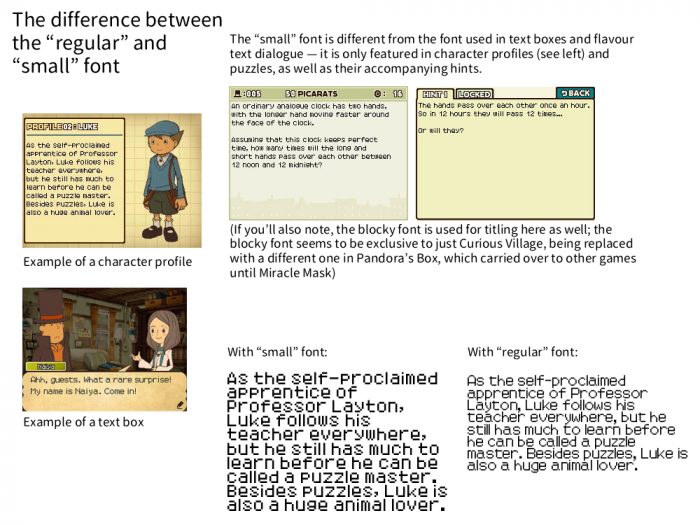
• Used on character profiles and for puzzles in the Professor Layton games (up until Miracle Mask where all of the pixel fonts were replaced with the switch to 3D).
Made this after finding that the regular font was slightly different when I was making a mock-up of the character profiles. It’s as close as I could make it with the references I could find!
Threw this together; some findings on the differences between the two fonts. I actually didn’t initially notice this, so it was a fun little project). I’ll add a character profile mock-up when I finish it.